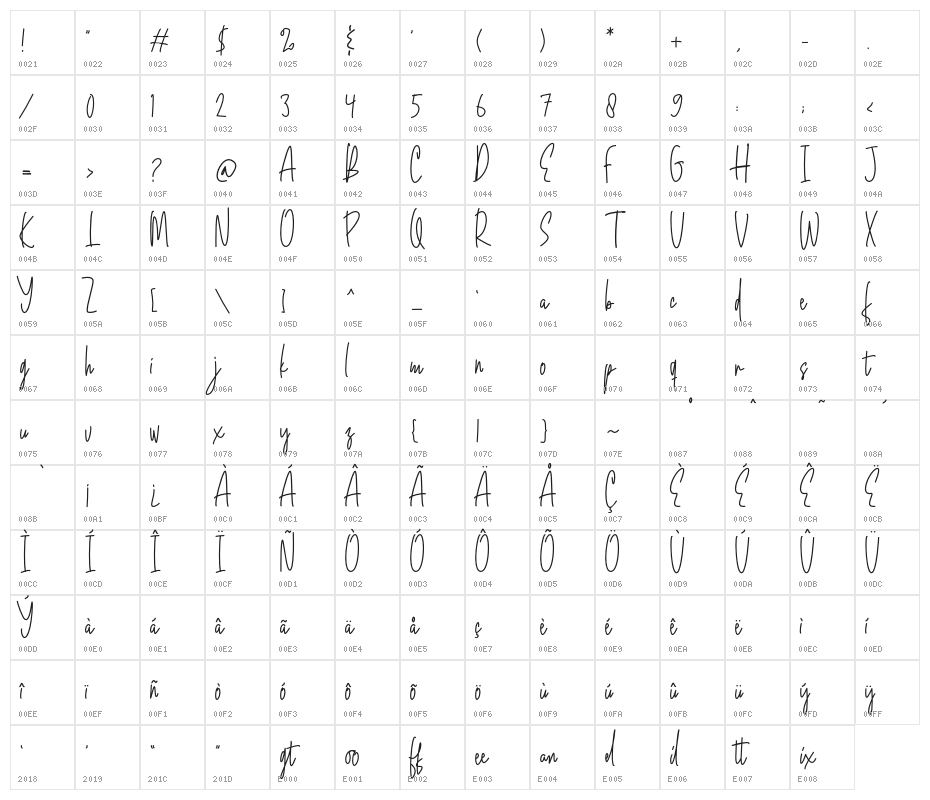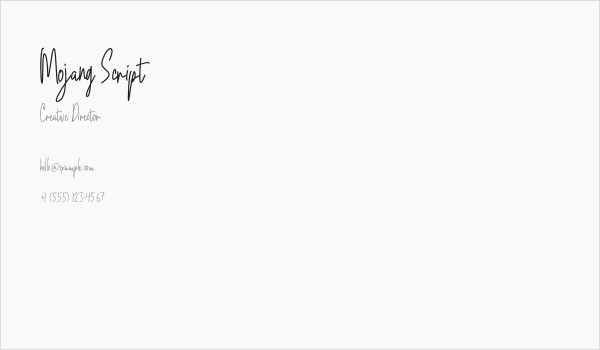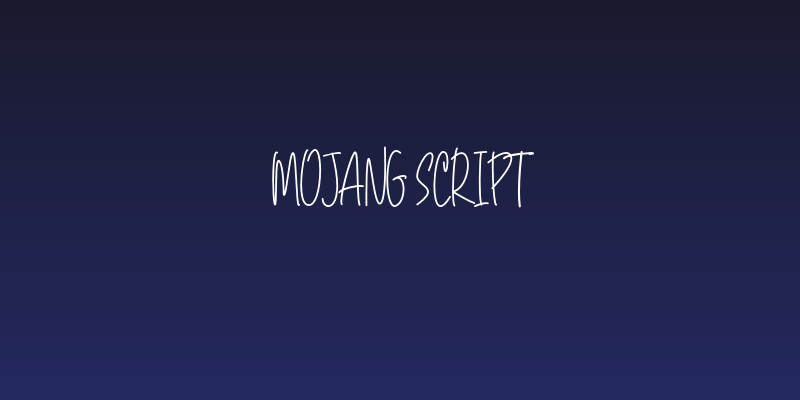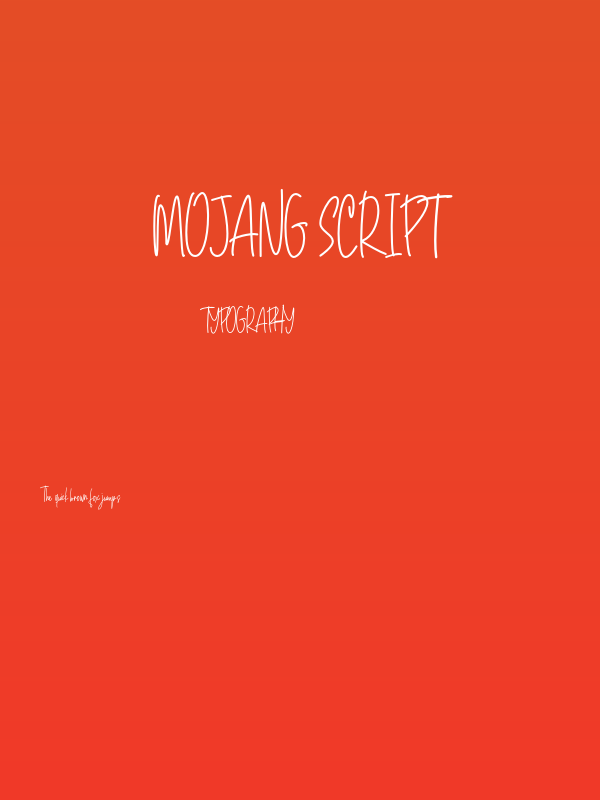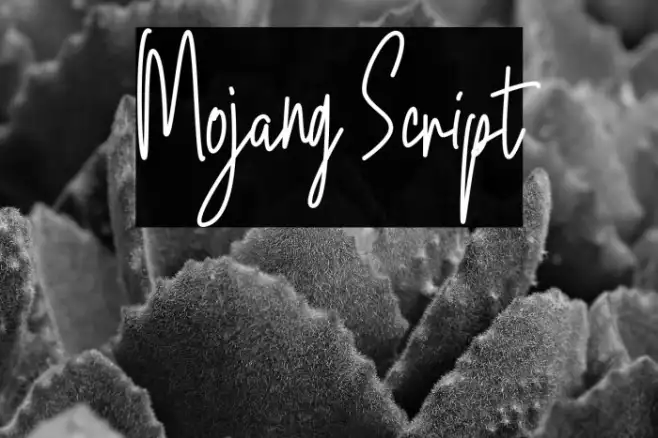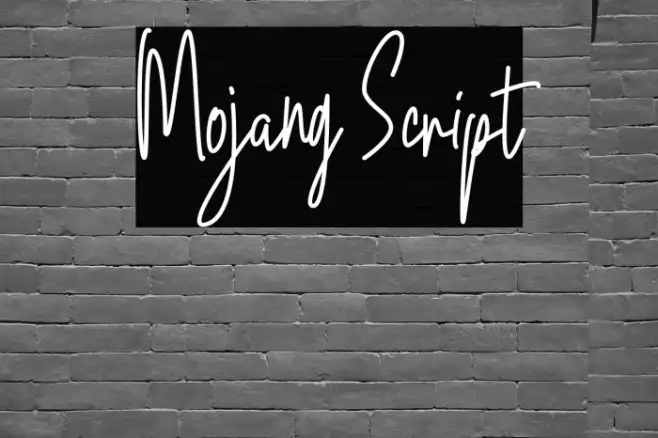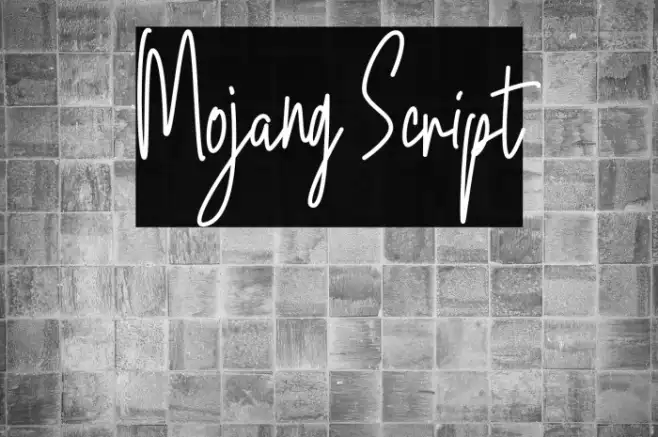
Mojang Script Font
Mojang Script Description
This font features a playful and energetic script style, characterized by its tall, narrow uppercase letters and flowing, connected lowercase letters. The uppercase letters exhibit a unique, hand-drawn quality with varying line thickness, giving them a dynamic and lively appearance. The lowercase letters are more fluid and cursive, enhancing the font's handwritten charm. The numerals maintain the same playful aesthetic, with a slightly irregular form that adds to the overall whimsical feel. Special characters are designed to match the font's energetic style, making it suitable for creative and informal applications.
| Proposed Projects | Ideal for greeting cards, invitations, playful branding, and creative social media graphics. |